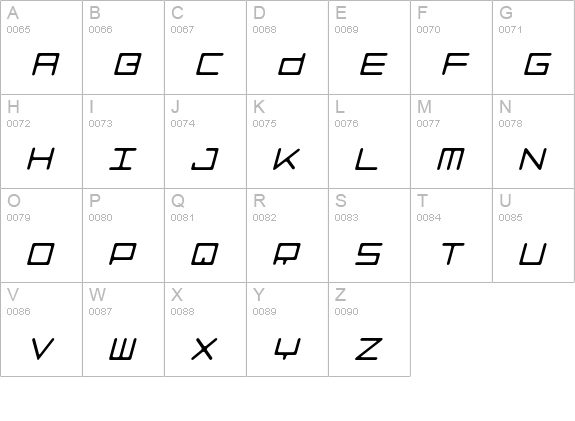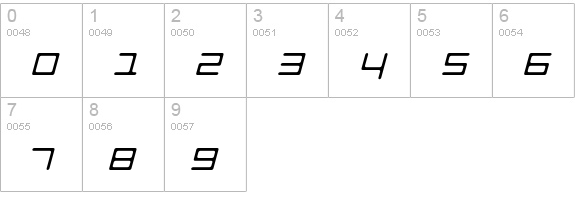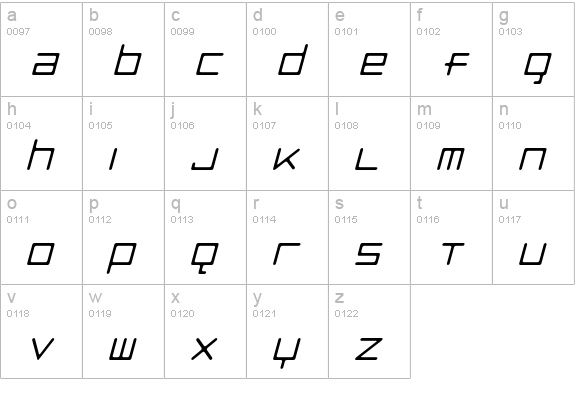
LuggageRoundLightObl Font Details
LuggageRoundLightObl font is a modern and stylish typeface that exudes elegance and sophistication. Its rounded edges and light weight give it a unique and contemporary look that is perfect for a variety of design projects. This versatile font is perfect for creating eye-catching headlines, elegant invitations, and stylish branding materials. The best part about LuggageRoundLightObl font is that it is completely free to download at FontsMarket.com. This means that you can easily add this beautiful font to your design arsenal without any cost. Whether you are a professional designer or a hobbyist looking to enhance your projects, LuggageRoundLightObl font is a great choice that won't break the bank. Don't miss out on the opportunity to elevate your designs with the stunning LuggageRoundLightObl font. Download it for free today at FontsMarket.com and start creating captivating and stylish designs that will impress your audience.